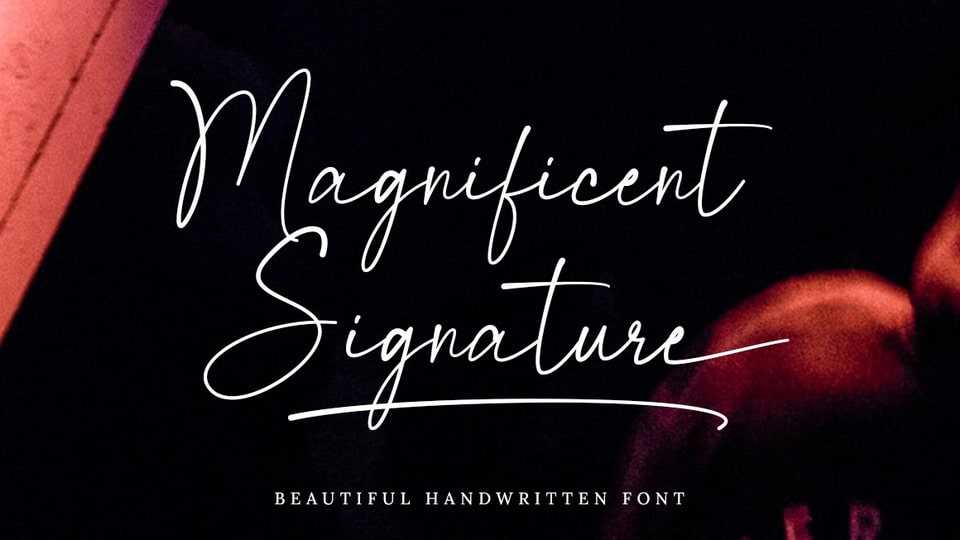
Download Magnificent Signature font, an elegant and beautiful handwritten typeface that has a natural shape. This stylish font will look beautiful on a variety of design projects.